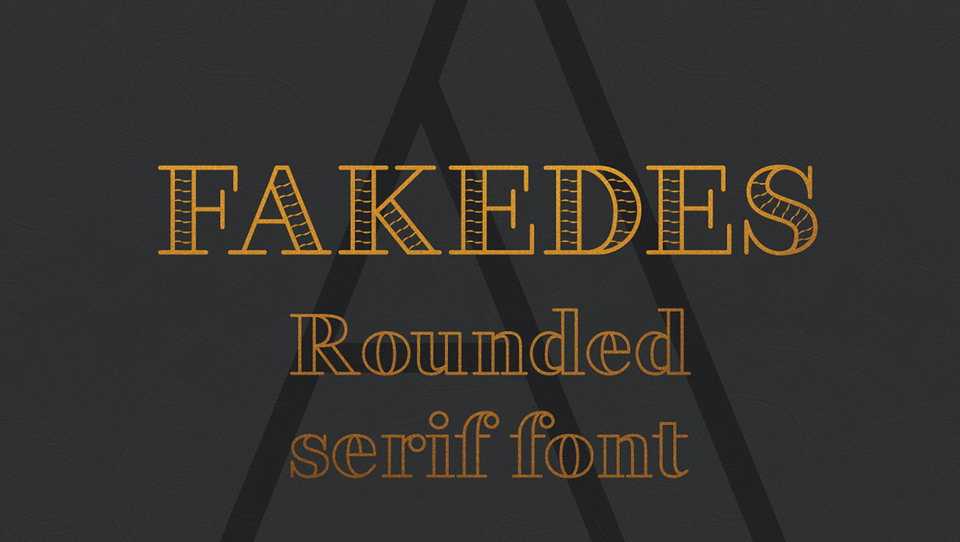
Download Fakedes font family, a beautiful rounded and outline serif typeface in two weights. Fakedes is perfect for branding, fashion and magazines, prints, social media and other creative typographic projects.
Designer: Cyril Mikhailov